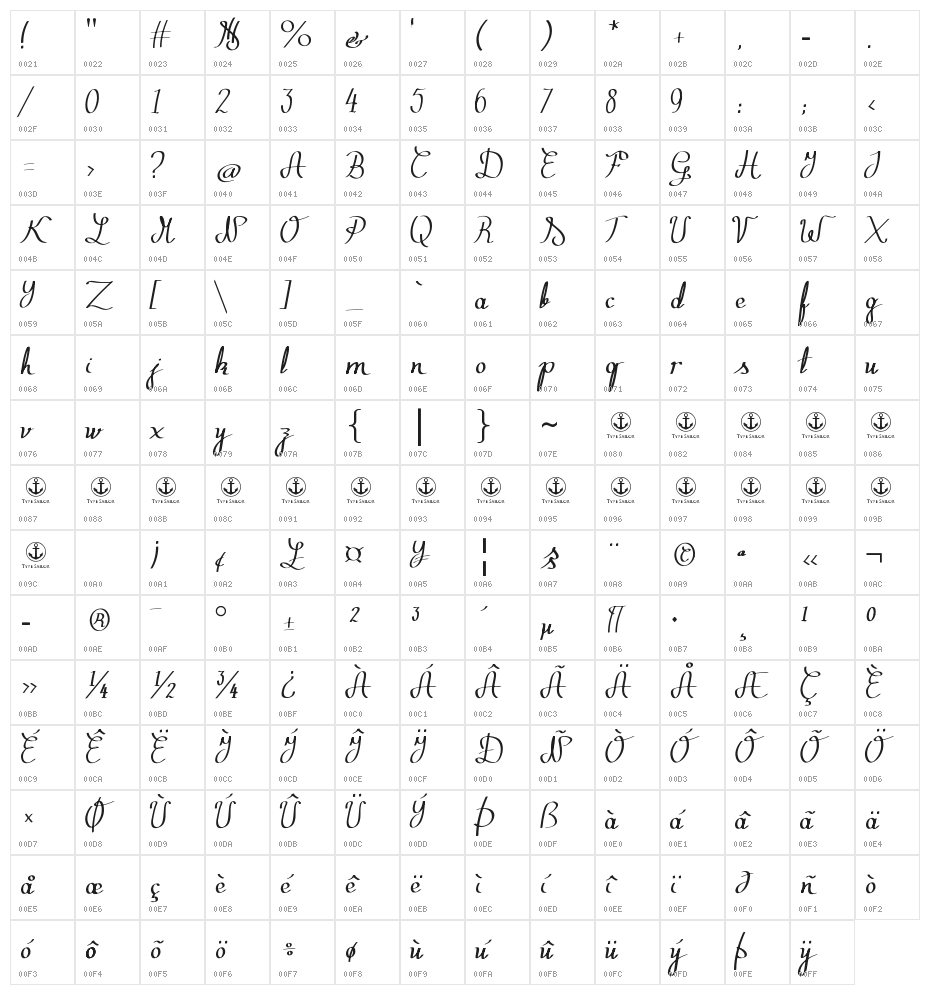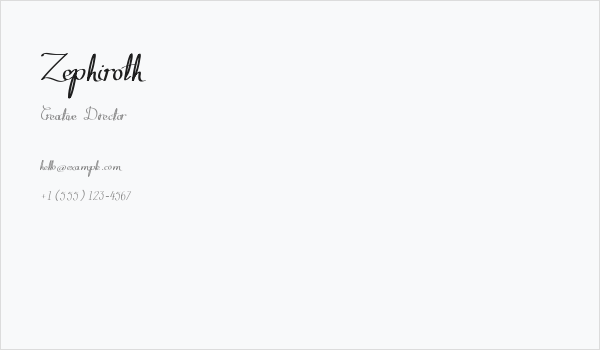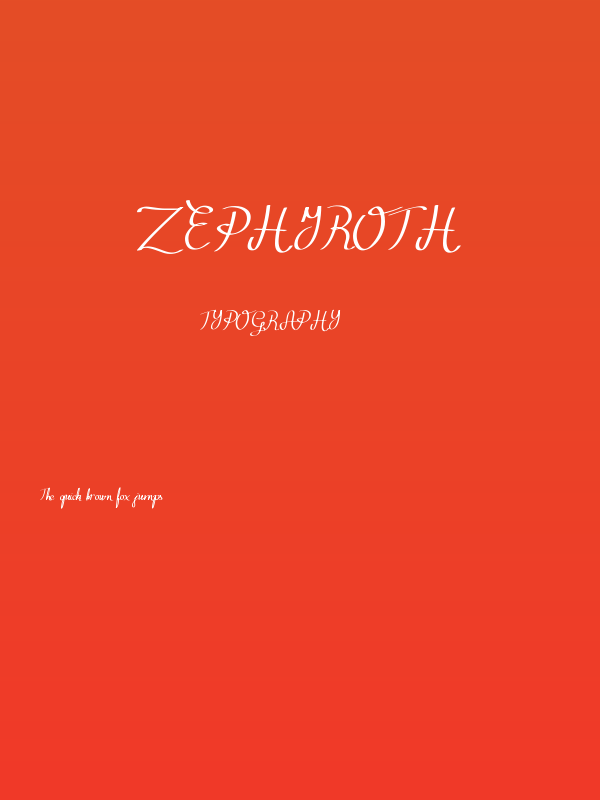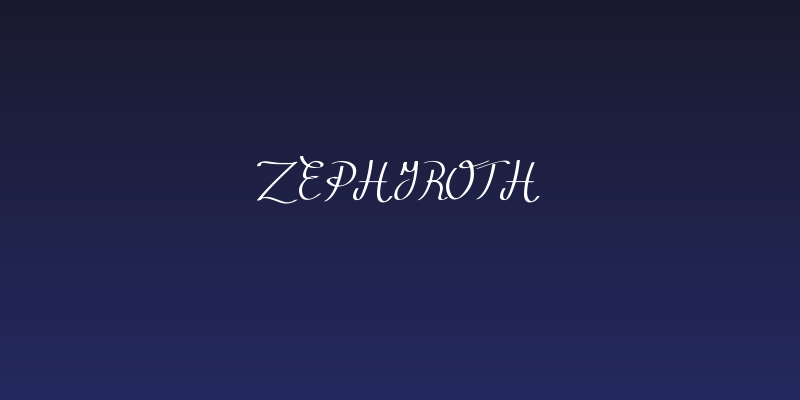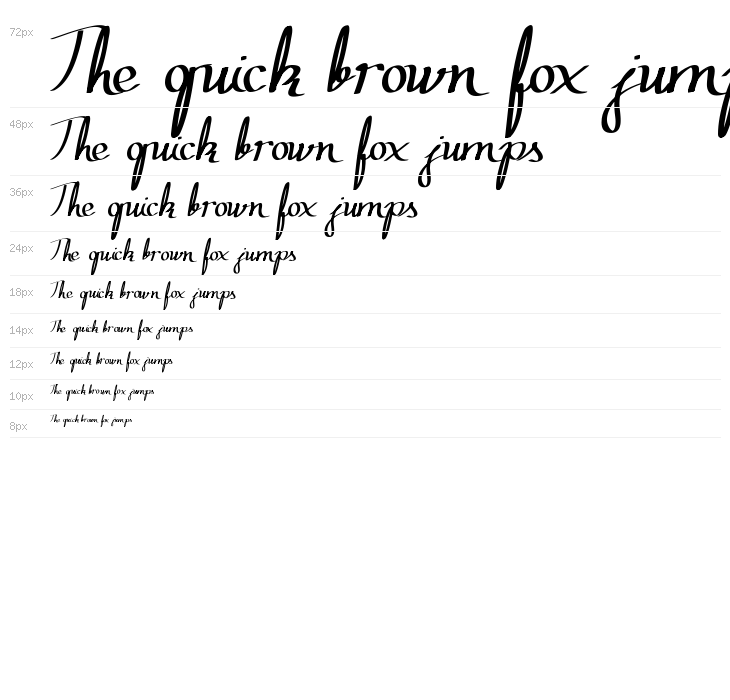
Zephiroth Font
This elegant script font features flowing, cursive letters with a classic and sophisticated appearance. The uppercase letters are ornate and slightly elongated, while the lowercase letters maintain a smooth and connected style, enhancing readability. The numerals are consistent with the overall script theme, offering a harmonious blend with the alphabet. Special characters are designed with the same attention to detail, ensuring a cohesive look across all elements. This font exudes a sense of grace and refinement, making it suitable for formal and decorative applications.
Overall StyleClassic
Use CaseLogos, Invitations, Decorative text
Proposed ProjectsIdeal for wedding invitations, elegant branding, greeting cards, and decorative signage.